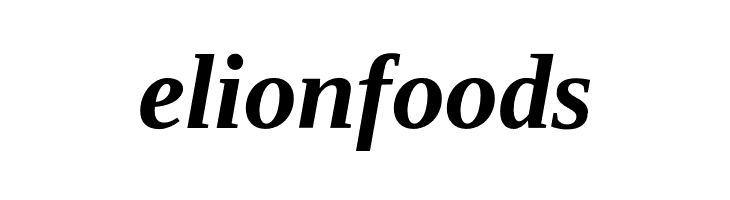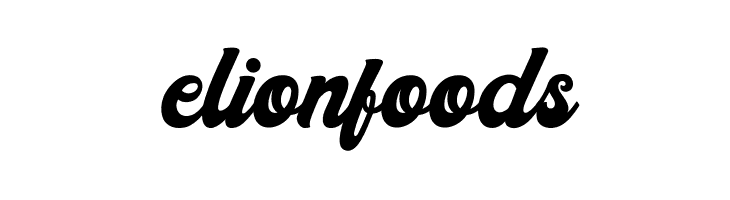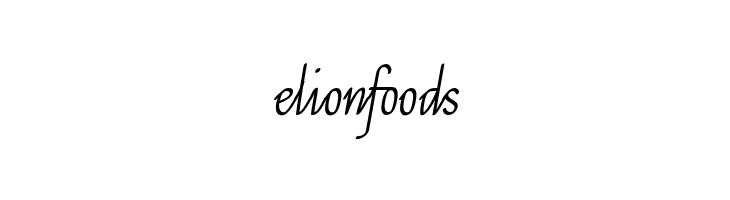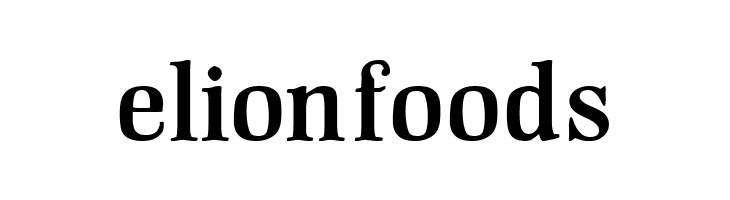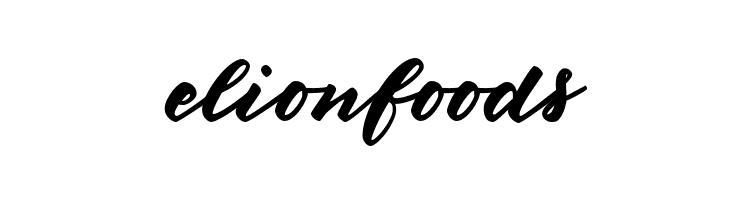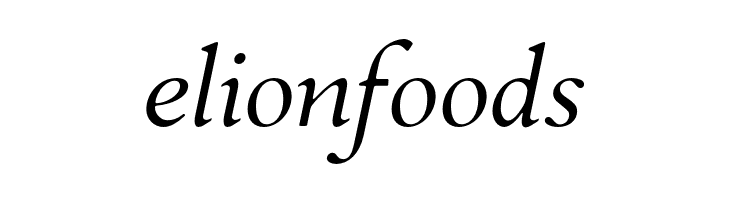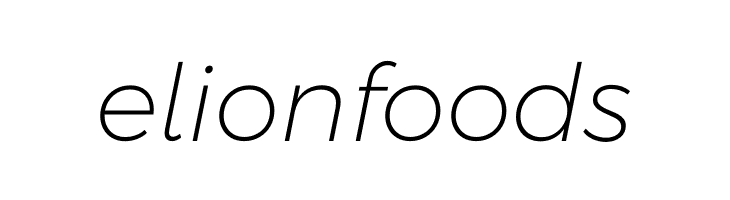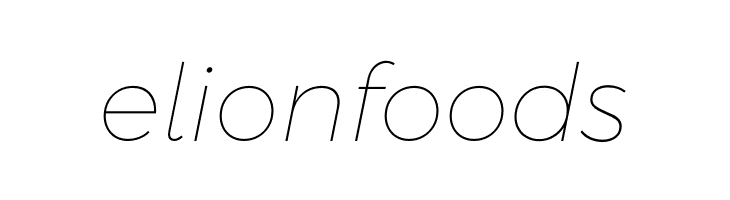
A bold, italic serif font with a modern and elegant style.
A bold, dynamic script font with high contrast and flowing characters.
A sleek, italicized font with a modern and elegant style.
A bold, classic serif typeface with strong strokes and clear readability.
A bold, expressive script font with fluid strokes and elegant slant.
An elegant italic serif font with moderate contrast and refined serifs.
A sleek, modern sans-serif font with an extra light, italic style.
A modern, thin, italic sans-serif font with a sleek and elegant style.
A modern, light, and italic sans-serif font with sleek lines and normal spacing.
A sleek, modern sans-serif font with an extra light, italic style.